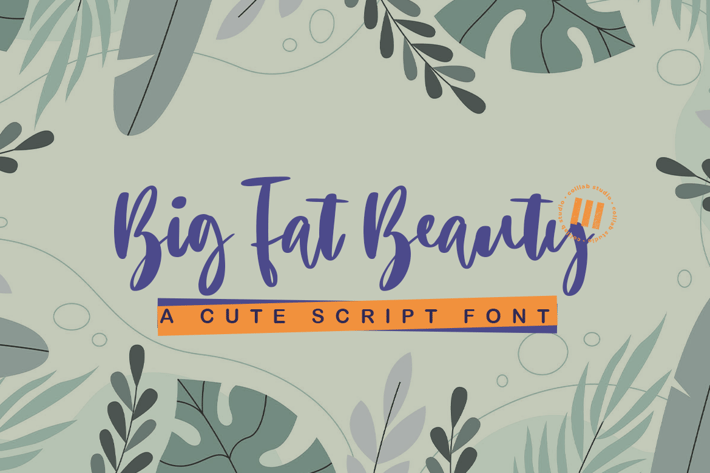
Big Fat Beauty - A Casual Script Font
Big Fat Beauty is A Casual Script Font that is suitable for design projects; casual theme, logo, branding, poster, quotes, display, beautiful stationary art, eye-catching social media posts, and cute greeting cards, and any other designs.
Some Alternates
Full uppercase and lowercase glyphs
Numbers, punctuations, and symbols